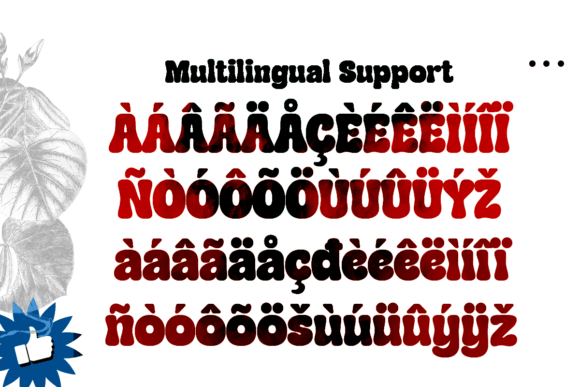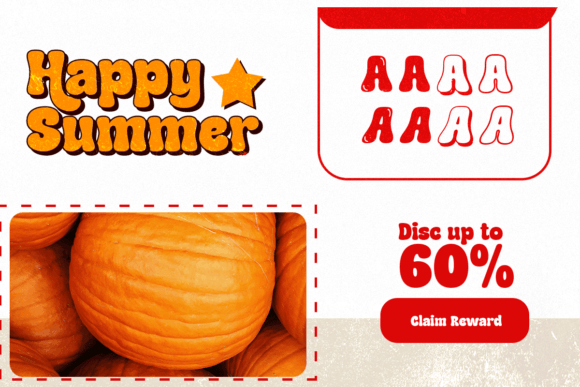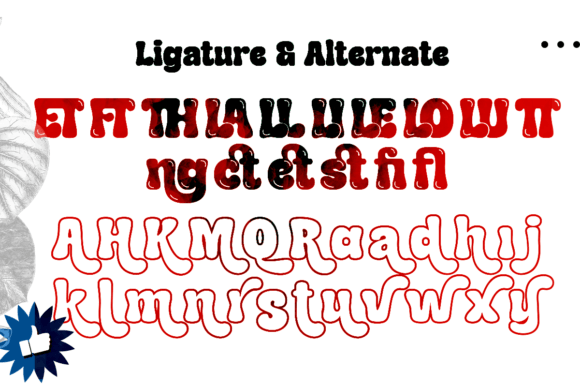
Mianga Font
Mianga is a versatile, stylish, and fun retro look font that’s perfect for any design you’re creating such as book covers, greeting cards, news headlines, and more!
Mianga comes in 4 styles, regular, bubble, outline, and shadow, with italics in each style. Mix each style for the perfect result.
Add it to any of your creative projects, and it will give off a retro and vintage feel.